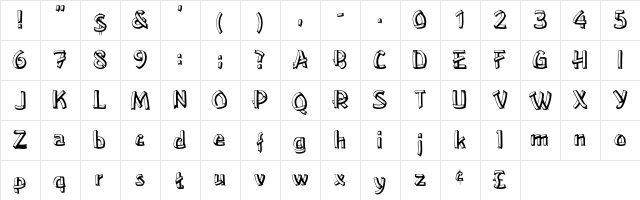
RSLowerEastSide Regular Font Preview
RSLowerEastSide Regular
Design Context for RSLowerEastSide Typeface
RSLowerEastSide is a composed and adaptable typeface that performs quietly and consistently across a wide range of design contexts.